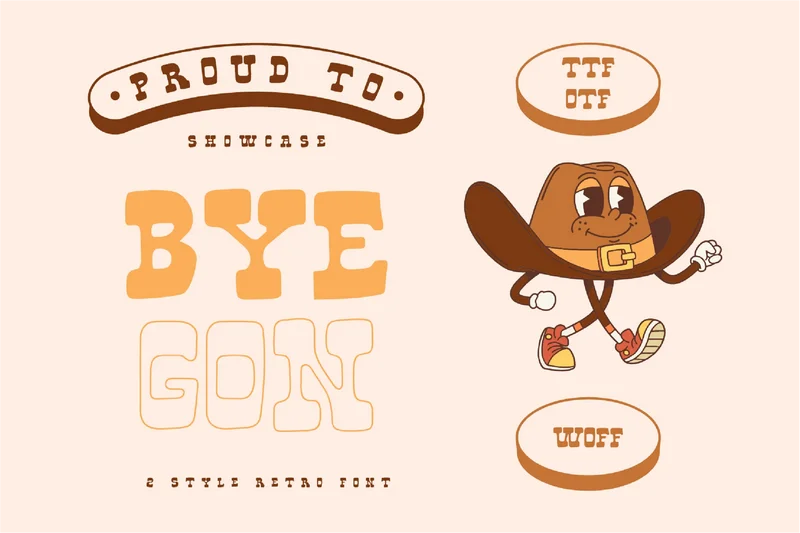
Byegon – Bold Western Font
This font captures the perfect blend of classic retro vibes and the iconic Wild West atmosphere. Each letter is designed with a freehand, organic touch, adding an expressive and unexpected feel. With its bold yet approachable shapes, the font exudes the spirit of cowboys, saloons, and desert adventures, making it ideal for event posters, vintage brand logos, and graphic designs looking to capture the essence of the American frontier. The intricate details in each letter add authenticity and boldness, perfect for projects requiring a typeface that tells a story of freedom and bravery.